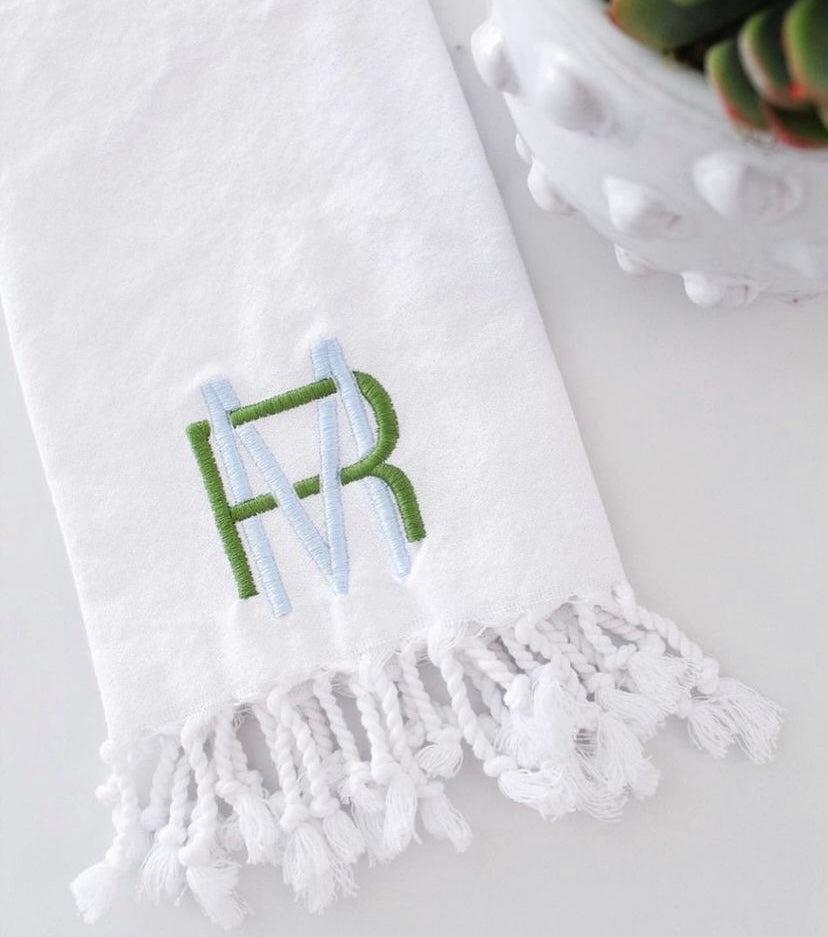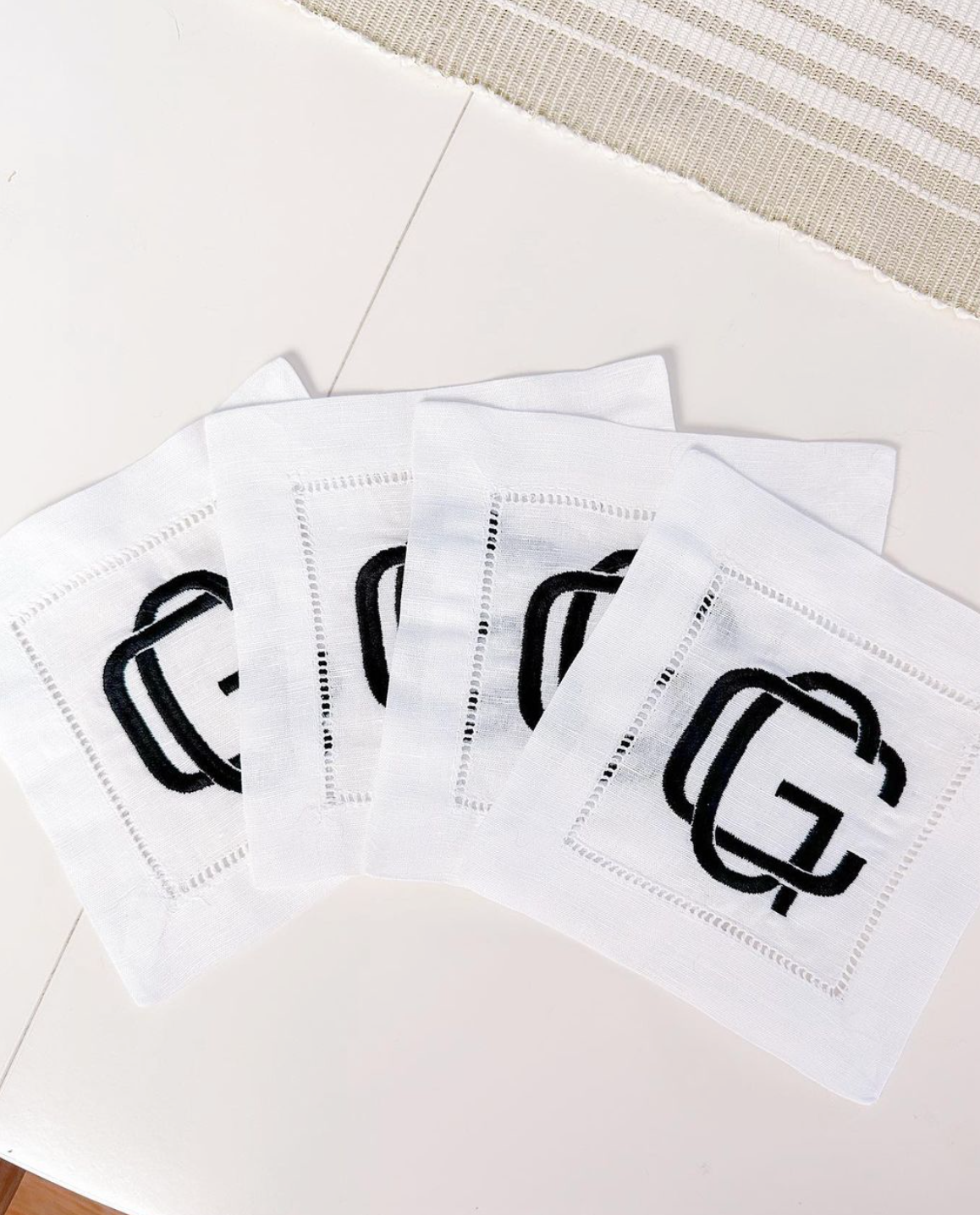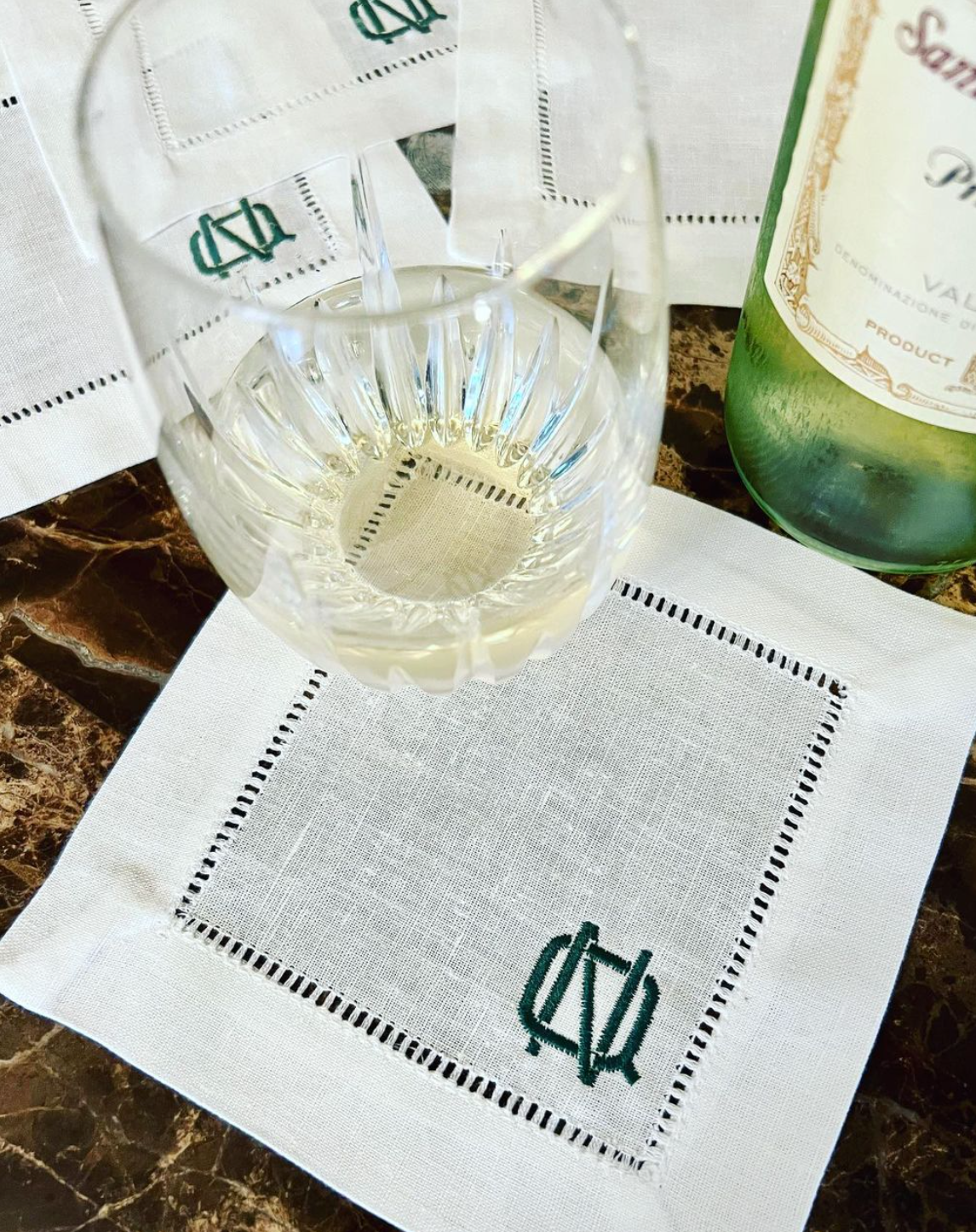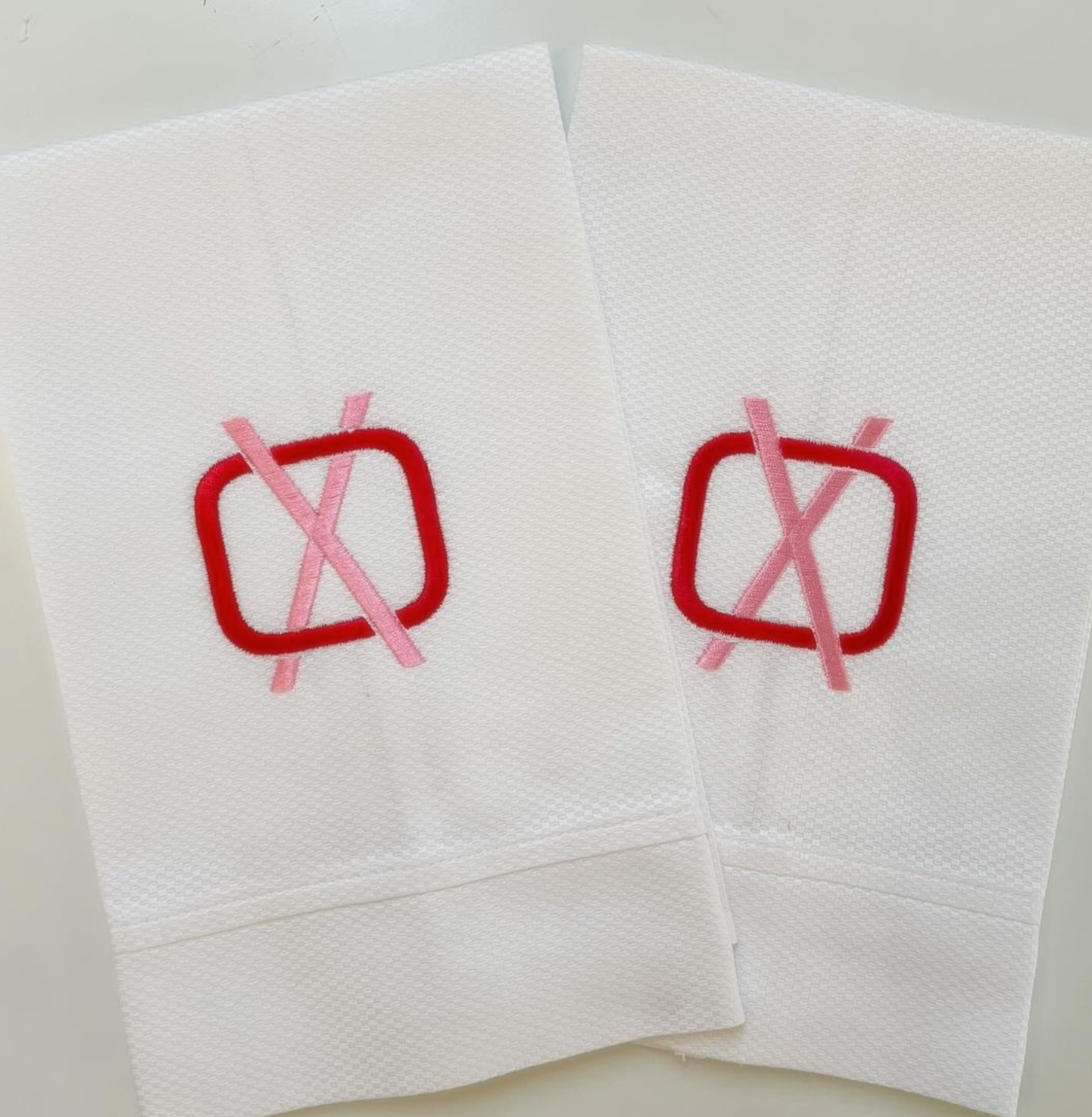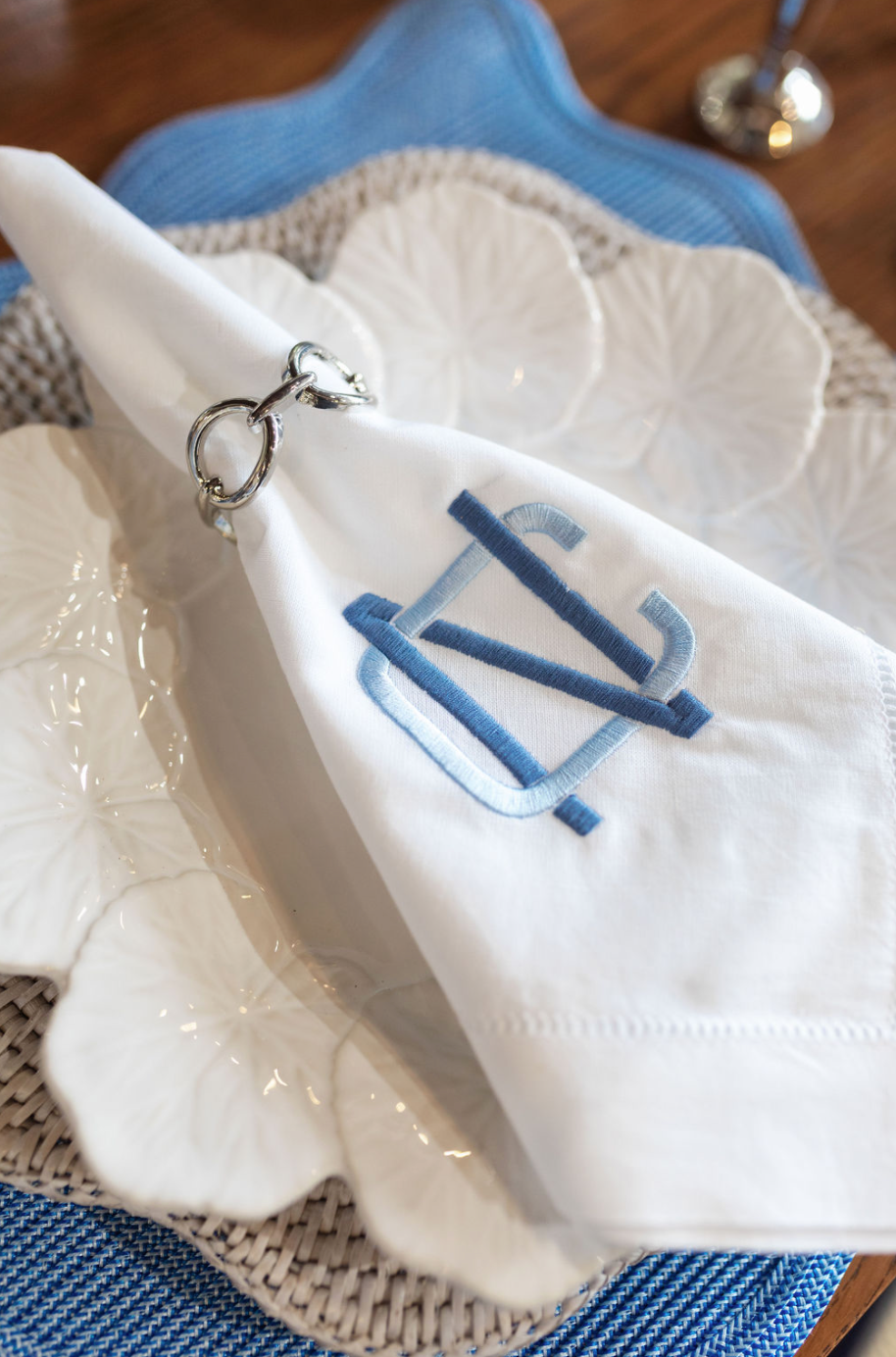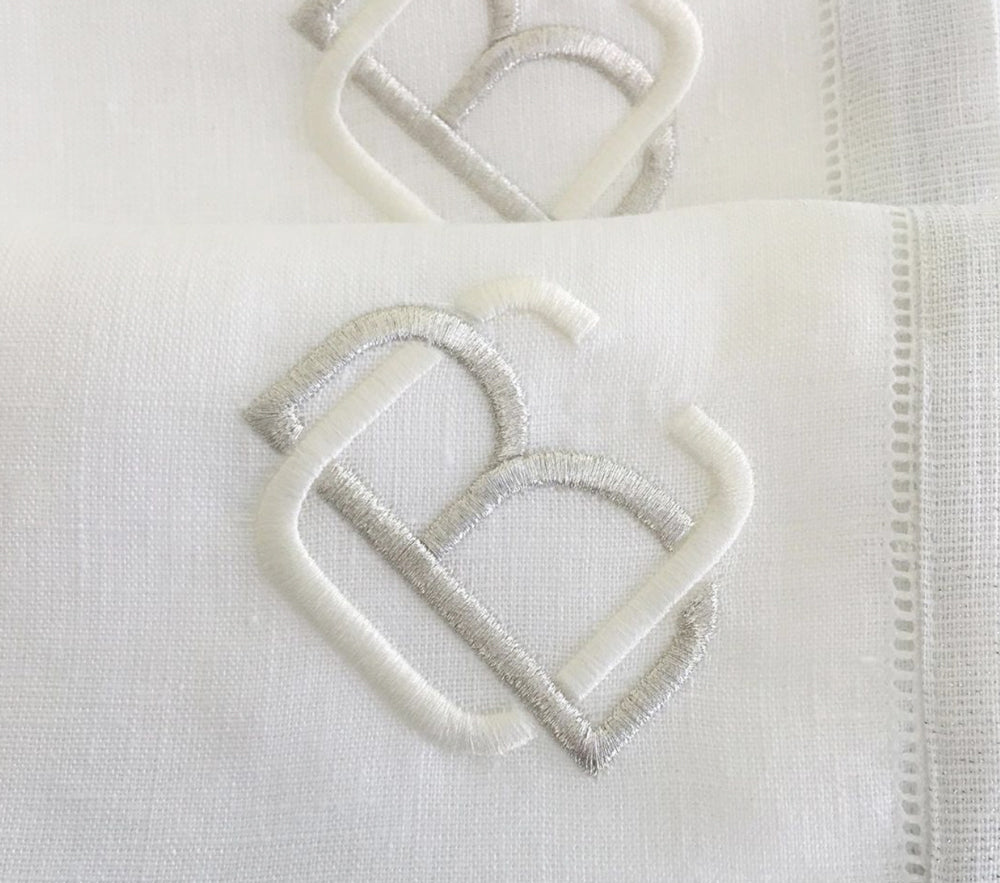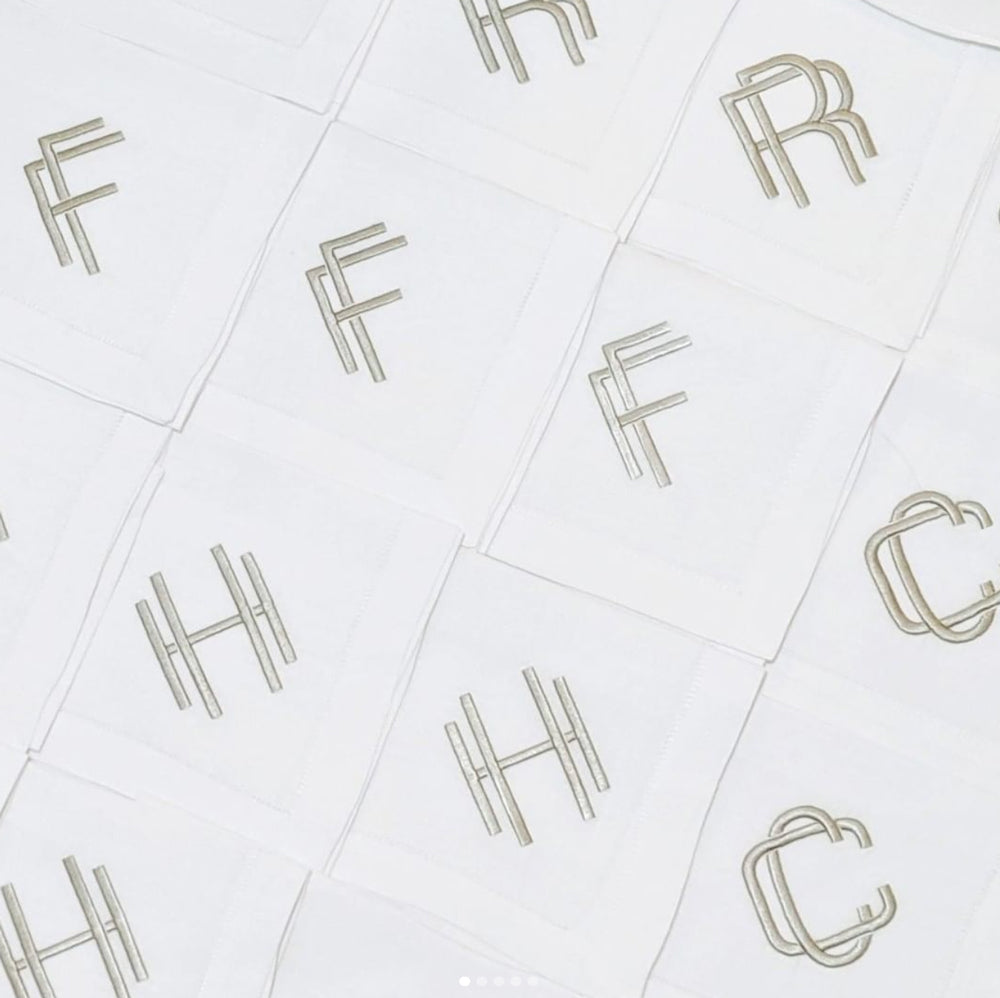
Monogram Block Font for Embroidery
The Monogram Block packages includes 351 beautiful interlocking double-letter monogram designs, all color-separated.
Every 2-letter combination is represented including combinations of the same letter (AA, BB, CC...). Single letters are not included.
Perfect for embroidery, the careful attention in the digitization of each design makes personalization unique and beautiful!